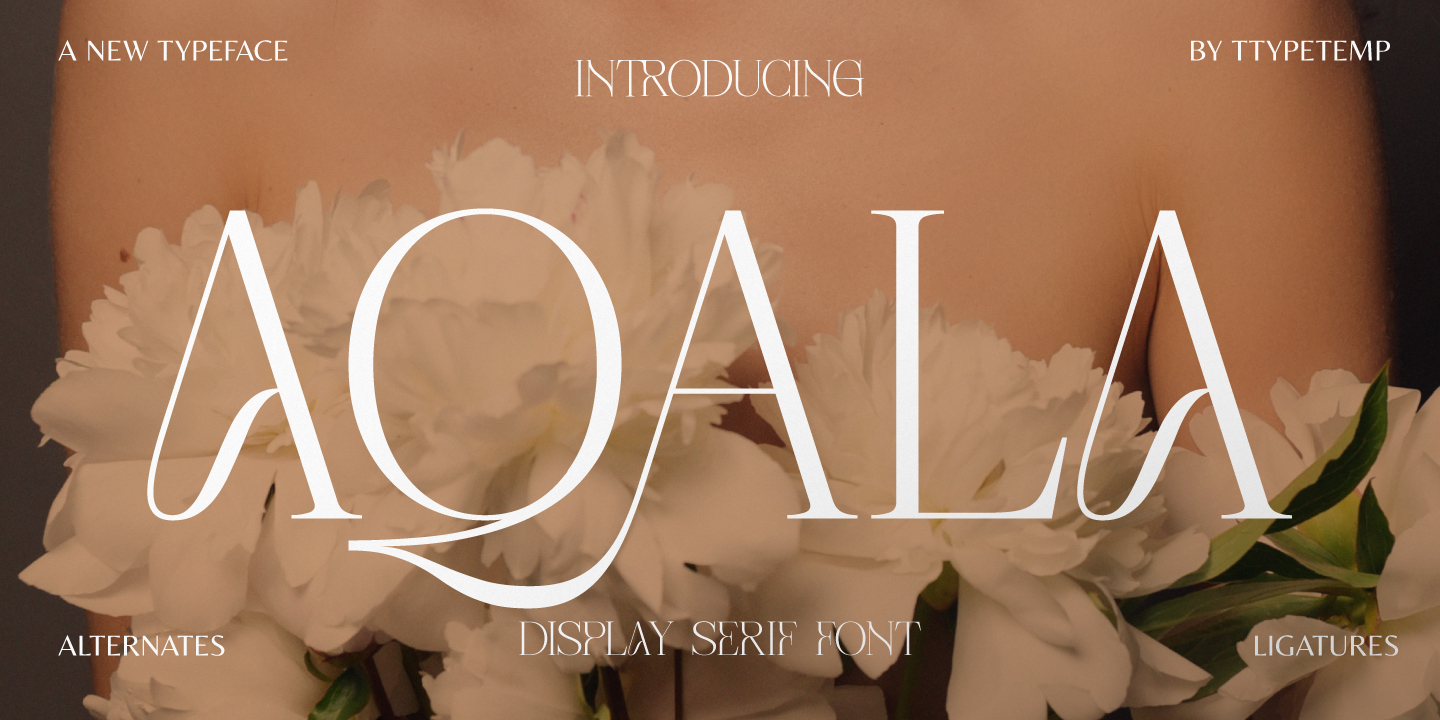
Aqala Display Font is perfect for modern branding, tech company logos, digital marketing campaigns, contemporary web design, mobile app interfaces, startup presentations, and innovative product packaging. Its bold appearance makes it ideal for creative agencies, software companies, fashion brands, architectural firms, and cutting-edge advertising materials.
Aqala Display Font is exciting because it represents the future of contemporary typography with its striking visual impact and modern sensibility. This remarkable typeface combines geometric precision with artistic flair, creating a powerful visual statement that commands attention and delivers memorable brand experiences. The font's dynamic character makes it perfect for brands seeking to convey innovation, creativity, and forward-thinking leadership.
The Aqala Display Font family includes multiple contemporary variations: Regular, Light, Medium, Bold, and Black versions. Each style maintains the font's signature modern character while offering different levels of visual weight. The family also features condensed versions, extended widths, and alternative characters that provide designers with comprehensive flexibility for diverse creative applications.
Aqala Display Font Free Download represents excellence in modern display typography design. This exceptional typeface has been carefully engineered to deliver maximum visual impact across digital and print media platforms. Whether you're creating brand identities for tech startups, developing advertising campaigns, or designing contemporary publications, this font delivers unmatched modernity and sophistication.
The contemporary inspiration behind Aqala Display Font makes it particularly suitable for technology companies, design studios, and innovation-focused brands. Its bold yet refined personality allows it to communicate progress and creativity while maintaining excellent legibility across various applications. The font's modern character supports projects that require both visual strength and functional performance.
Professional designers choose Aqala Display Font for its ability to create instant brand recognition and memorable visual experiences. The font performs exceptionally well in headline and display applications, making it an essential tool for modern brand development. Its distinctive letterforms support multiple languages and include extensive character sets for global brand communications.
The powerful presence of Aqala Display Font makes it an ideal choice for brands wanting to establish contemporary, innovative positioning. Its distinctive modern personality enhances digital communications while creating strong connections with audiences who value cutting-edge design and progressive thinking.